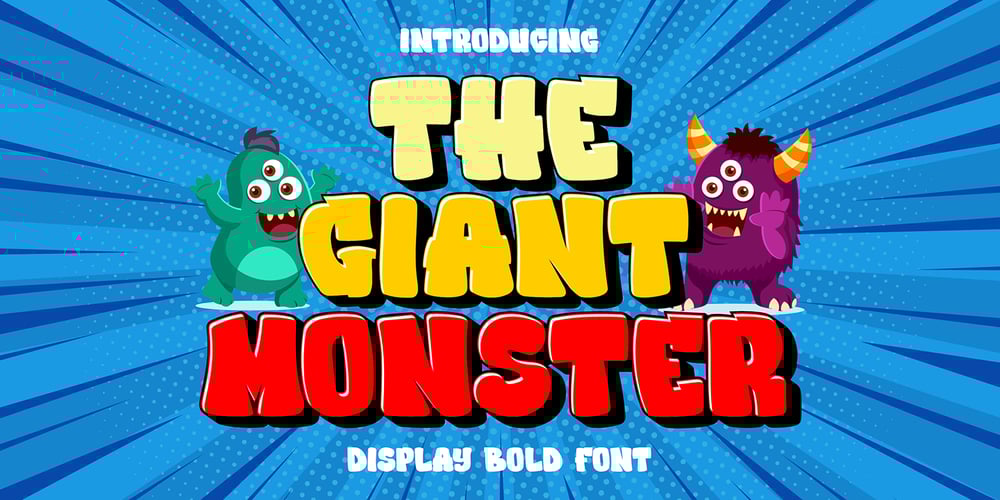
The Giant Monster
The Giant Monster font
The Giant Monster Font Family was designed by Sipanji and published by Sipanji21. The Giant Monster contains 3 styles and family package options. “The Giant Monster” is a bold 3D display font featuring solid, inner, and shadow characters. Fonts like this offer various styles within the same typeface, providing depth and dimension to the text.The solid characters provide a bold and straightforward appearance, while the inner characters offer depth and a three-dimensional effect within the letterforms. The shadow characters contribute to the font’s depth by adding shadowing or highlighting behind each character.With its multi-layered design, “The Giant Monster” allows you to create text that appears voluminous and impactful. This font is suitable for projects such as posters, titles, or any design endeavor that requires a bold and dynamic typographic style with a three-dimensional effect.